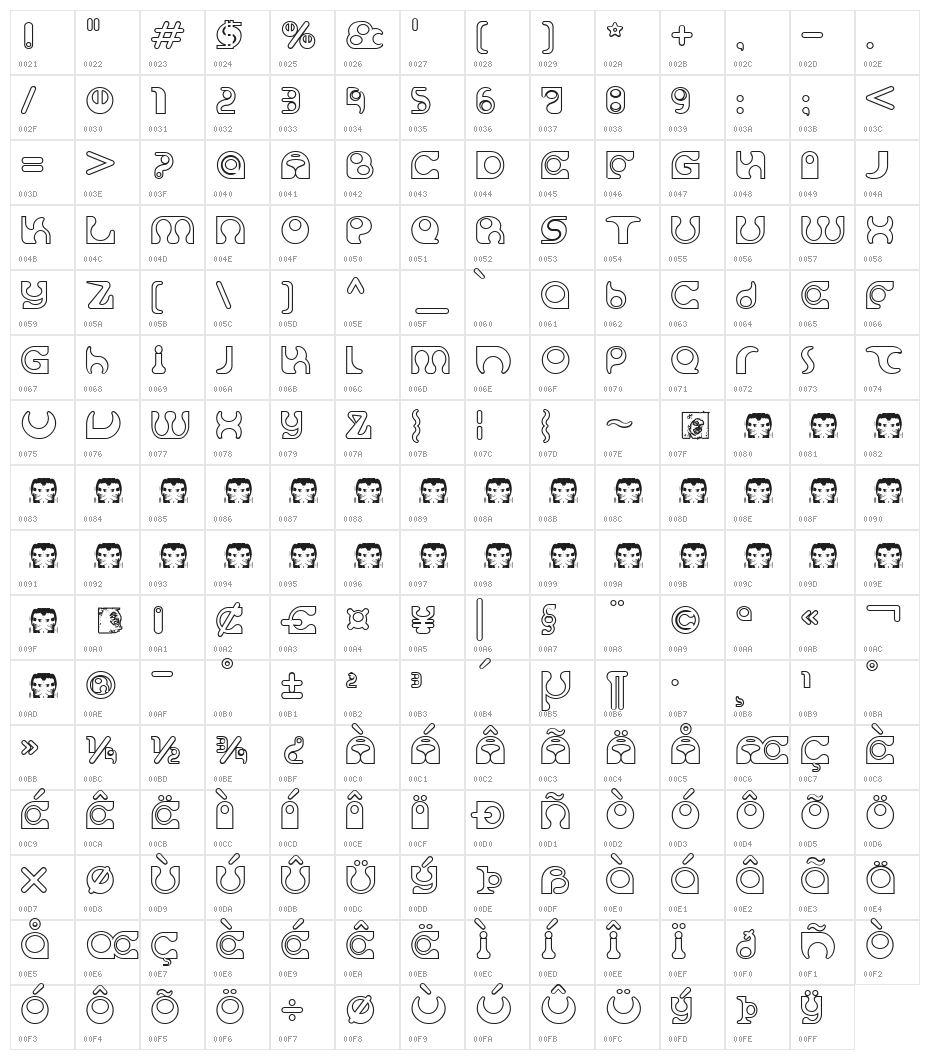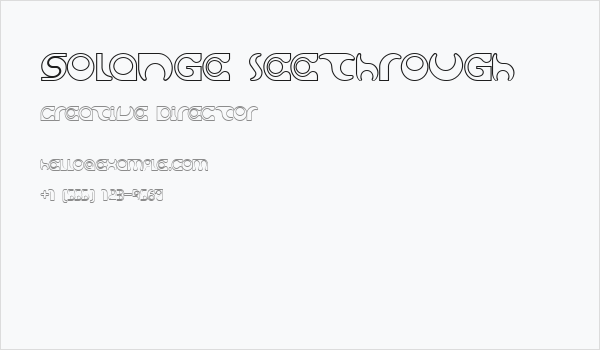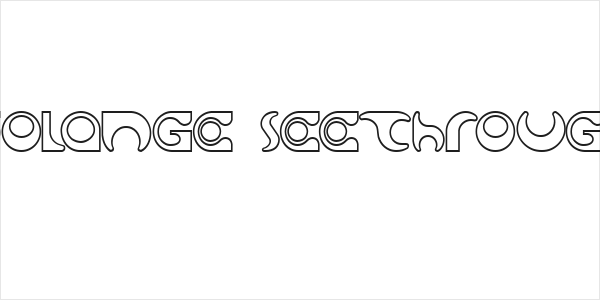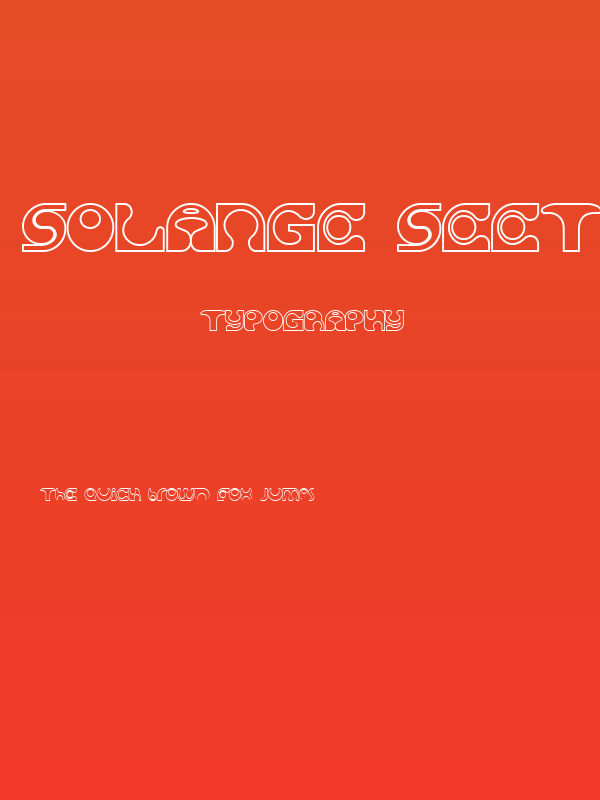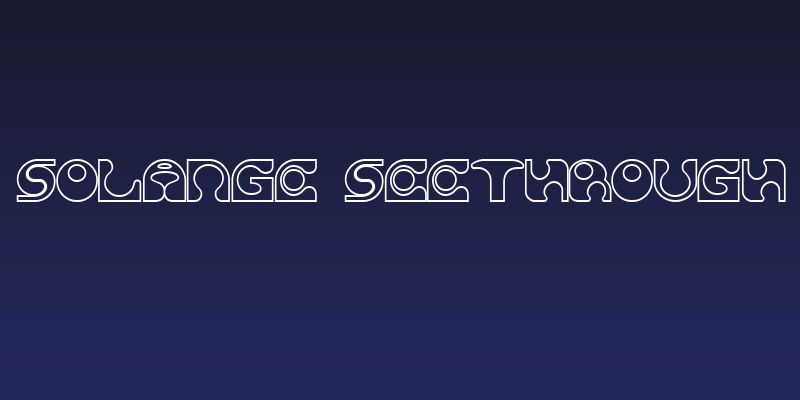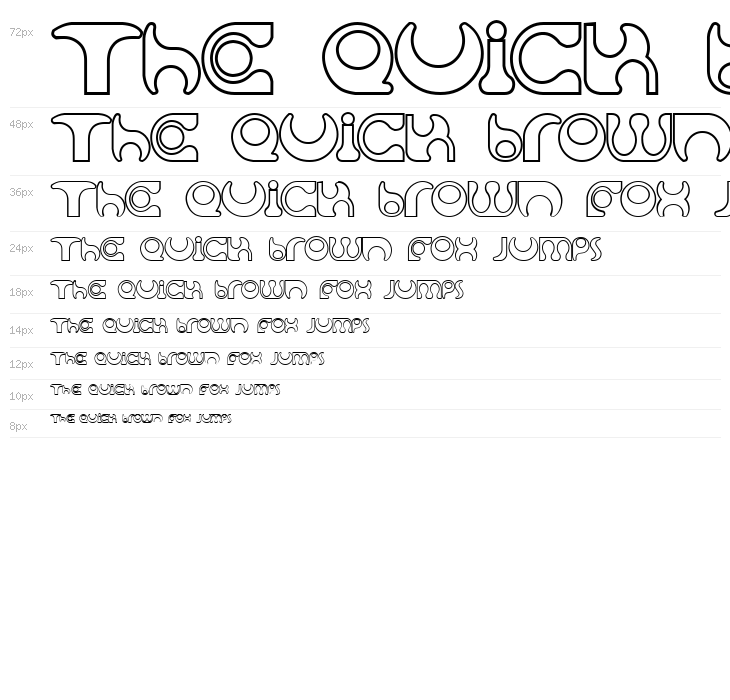
Solange seethrough Font
Solange seethrough Description
This font features a unique, geometric design with open, see-through elements that create a modern and futuristic appearance. The characters are constructed with bold, rounded lines that form intricate shapes, giving each letter a distinct and artistic look. The uppercase and lowercase letters maintain a consistent style, with smooth curves and sharp angles that enhance the font's visual appeal. The numerals and special characters follow the same design principles, ensuring a cohesive and harmonious set. This font's innovative style makes it stand out, offering a fresh take on traditional typography.
| Use Case | Logos, Posters, Digital Media |
| Proposed Projects | Ideal for branding, logos, posters, and digital media projects that require a contemporary and artistic touch. |